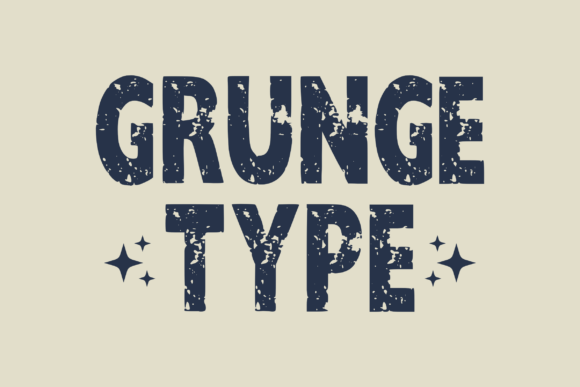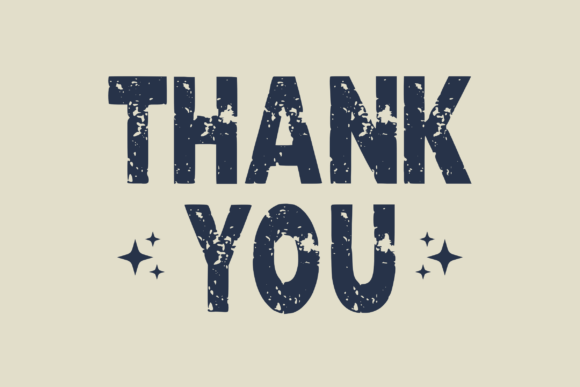
Unleashing the Power of Black Grunge: A Comprehensive Guide
I’ll never forget the time I was working on a comic book project, pouring my heart and soul into the story and illustrations. But as I was about to add the finishing touches, I realized I was stuck with a bland, uninspiring font that completely ruined the vibe I was going for. It was like trying to pair a bold, spicy dish with a glass of milk – just not happening! 😂 I knew I needed something with a bit more oomph, something that could match the energy and edginess of my artwork. That’s when I stumbled upon **Black Grunge**, a dynamic and contemporary Grunge typeface that’s been a total game-changer for me and countless other designers, crafters, and creative hobbyists.
The Power of Black Grunge
So, what makes Black Grunge so special? This font exudes robustness in every single character, making it **ideal for crafting eye-catching comic book headers, celebratory birthday banners, gourmet food branding, unique sublimation designs, and personalized t-shirt prints and mugs**, among other creative endeavors. The power of Black Grunge emphasizes visual impact and magnifies the user’s creative vision. Whether you’re a seasoned pro or just starting out, this font is sure to take your designs to the next level.
- ✨ Robust and edgy design that adds a touch of grit to any project
- ✅ Highly versatile and adaptable to various design styles and mediums
- 💥 Attention-grabbing headers and titles that demand attention
- 🎨 Plenty of creative possibilities with OpenType features, glyphs, and stylistic alternates
- 🤔 May not be suitable for very small font sizes due to its bold and chunky design
- ⚠️ Some characters may require manual kerning for optimal spacing and readability
While the true origins of Black Grunge are shrouded in mystery, it’s clear that the designer was inspired by the grunge and punk movements of the 90s. The font’s bold, edgy design is reminiscent of the era’s DIY ethos and rebellious spirit. Whether you’re a fan of the music or just the aesthetic, Black Grunge is sure to bring a bit of that raw energy to your designs.
Q: Is Black Grunge suitable for body text?
A: While Black Grunge is a beautiful font, it’s not ideal for body text due to its bold and chunky design. It’s best used for headings and titles that need to make a statement.